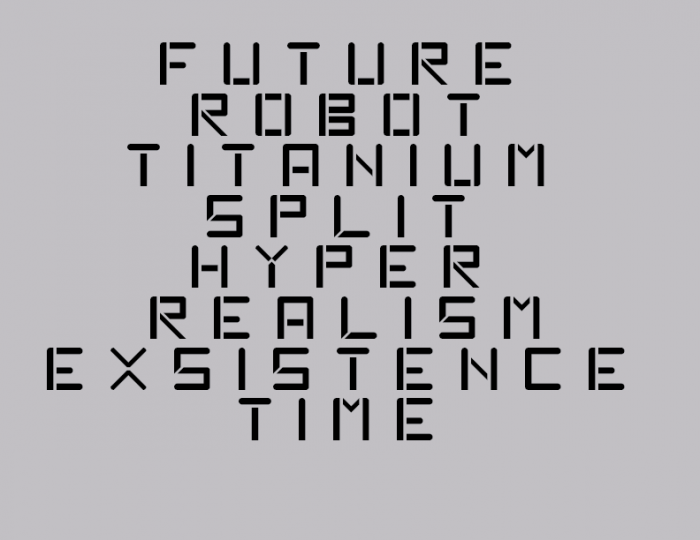
• "Split SS" is made for looking forward to the future. This typeface features san serif with sharp and rounded edges. It has a techno feel and was made to be used in futurisitc designs.